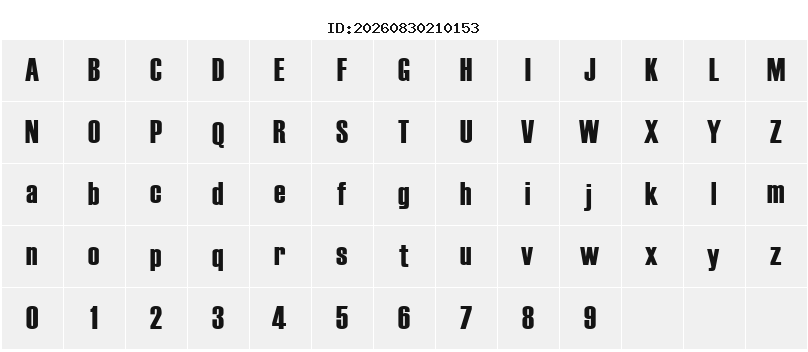
Temp Installer Font Preview
• Font Name: Temp Installer Font
• Full Font Name: Haettenschweiler
About Temp Installer Font.ttf
Temp Installer Font.ttf is a modern, elegant sans-serif font designed for ultimate readability and visual harmony. Perfect for branding, headlines, web design, and print materials.